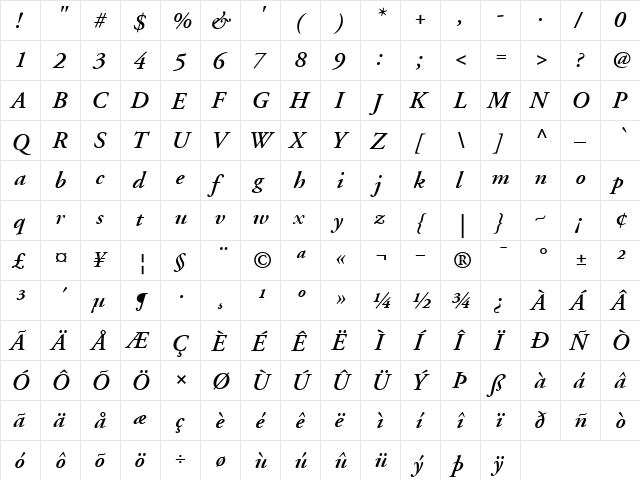
AdobeGaramond-SemiBold Semi BoldItalic
Design Context for AdobeGaramond-SemiBold Typeface
AdobeGaramond-SemiBold offers clean, dependable letterforms without strong stylistic allegiance, making it a practical choice for designers who need flexibility. The slanted form adds forward momentum and visual energy. The heavy weight commands attention and anchors typographic hierarchies.
Pro Tip: Use AdobeGaramond-SemiBold for emphasis, pull quotes, and subheadings where its slanted energy can add rhythm to the layout.